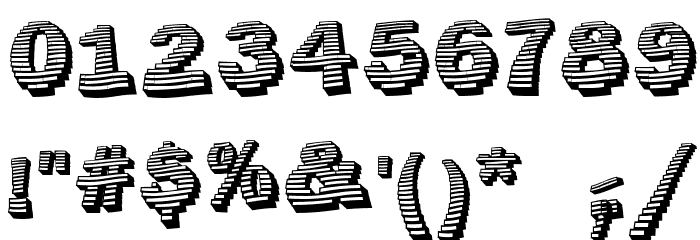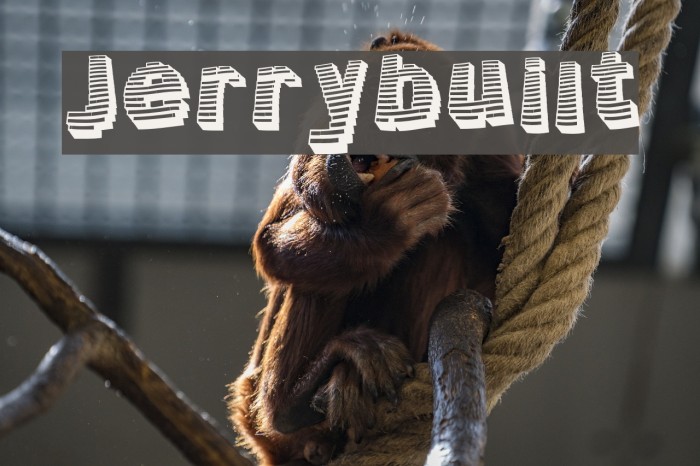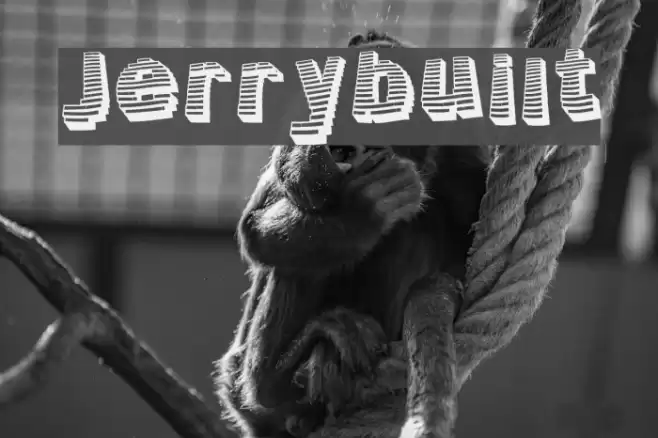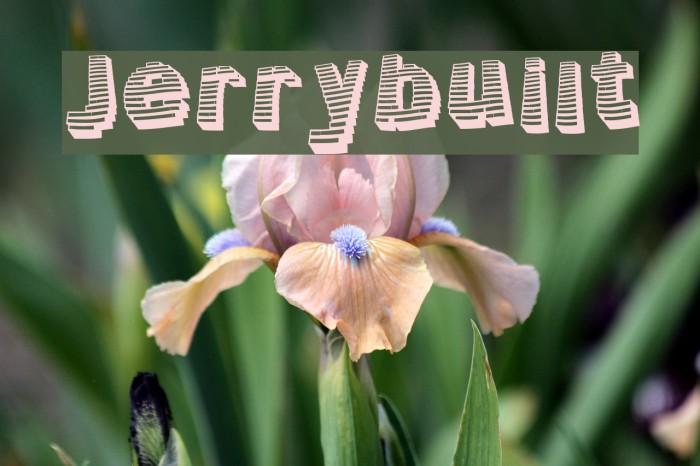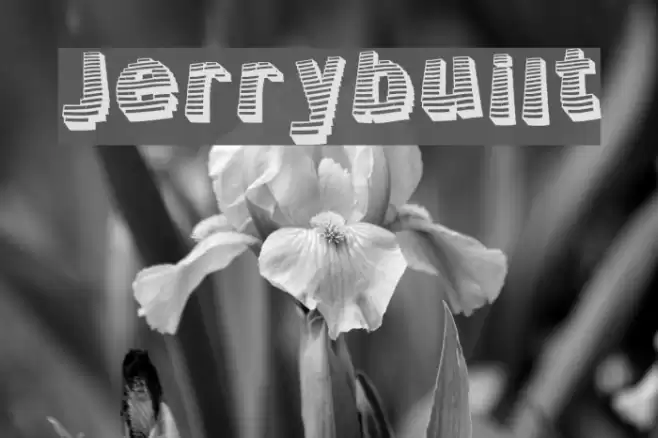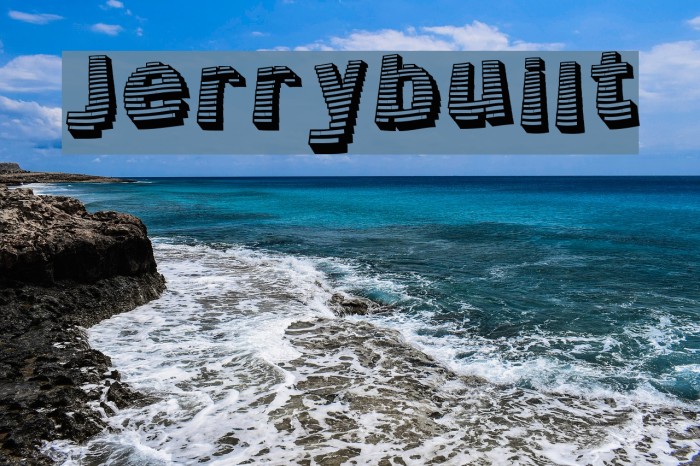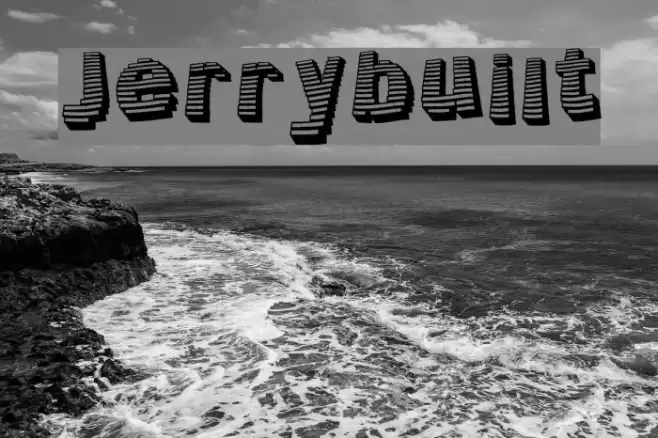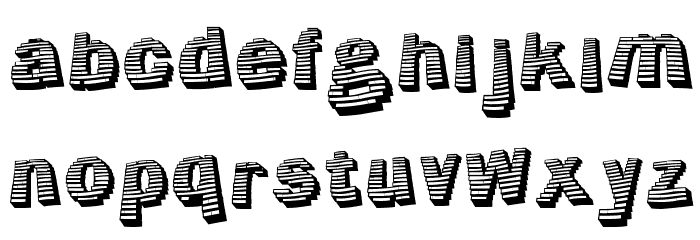
Jerrybuilt Font
| Общий стиль | Retro, Comic |
| Рекомендуемые проекты | Ideal for comic book titles, retro-themed posters, playful branding, and eye-catching headlines. |